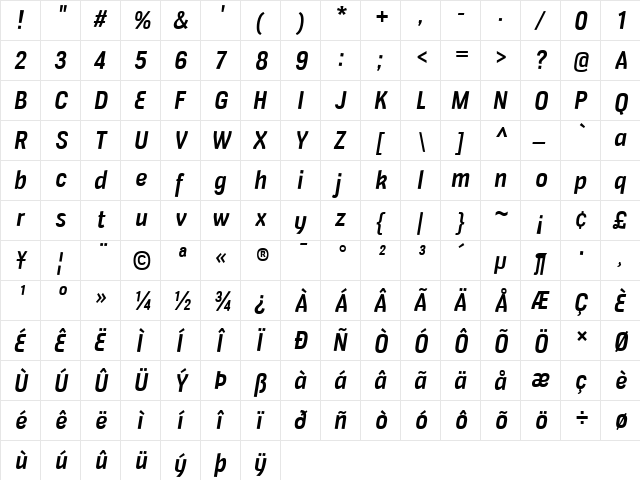
Veriox SemiBold Italic Font Preview
Veriox SemiBold Italic
Veriox SemiBold Italic Font Details
Design Context for Veriox Typeface
Veriox takes a measured approach to typography — its balanced proportions and neutral character make it a reliable workhorse for both digital and print work. The dynamic lean of this cut emphasises speed and emphasis in any layout. The heavy weight commands attention and anchors typographic hierarchies.
Pro Tip: Use Veriox for emphasis, pull quotes, and subheadings where its slanted energy can add rhythm to the layout.